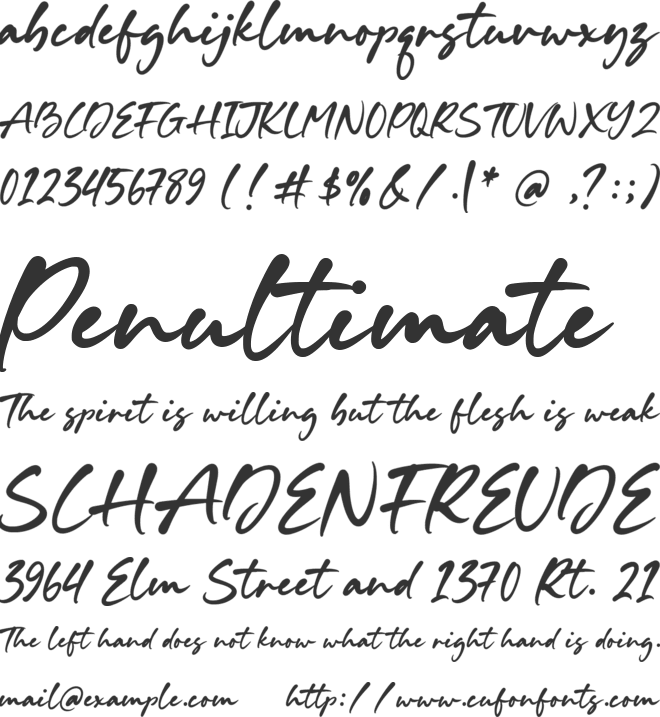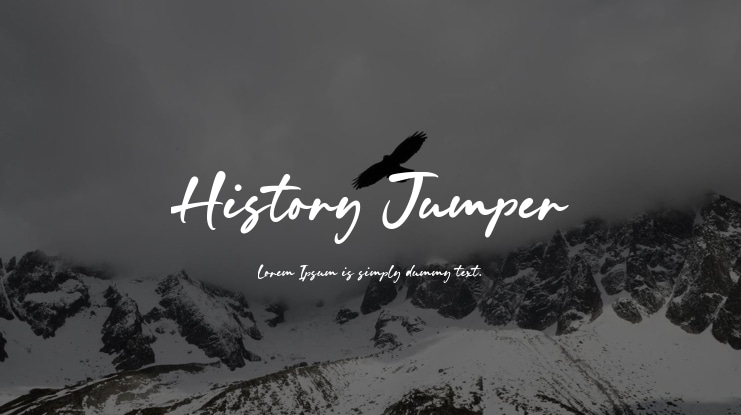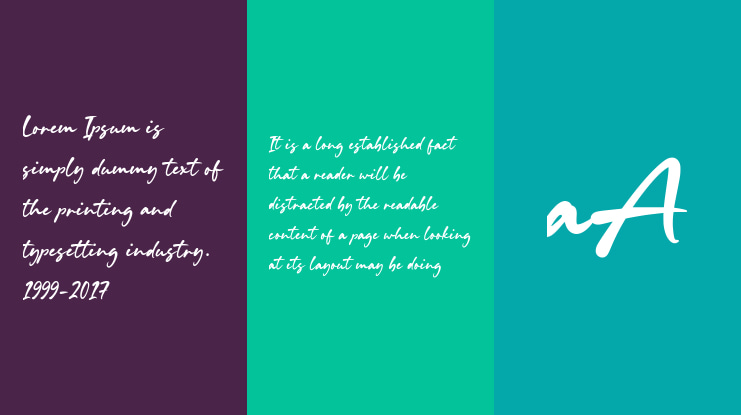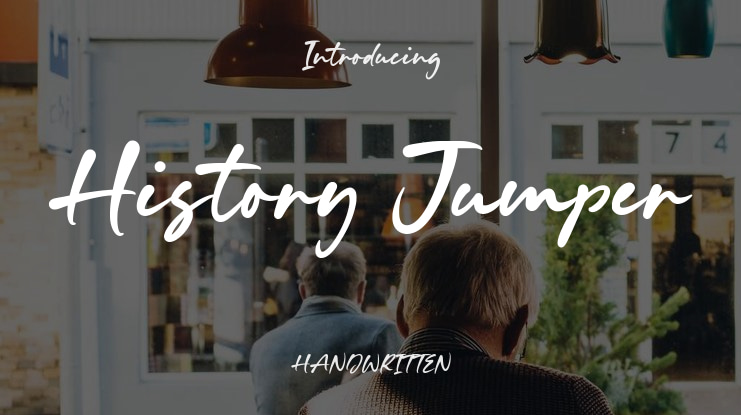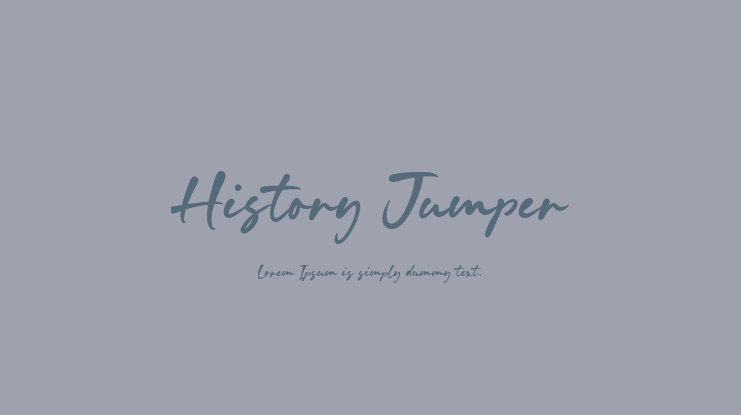
History Jumper Font
Introduced by Timurtype Studio!
History Jumper is a Handwritten Script Font
This captivating handwritten script font seamlessly blends elegance with a touch of nostalgia. With fluid strokes and artistic flourishes, it evokes a sense of warmth and authenticity, making it ideal for invitations, creative branding, and storytelling projects. Combining a unique balance of legibility and style, History Jumper adds timeless charm to any design, inviting users to delve into a world of creativity and expression.
History Jumper Font also supports multilingualism.
Features of History Jumper Font include:
• Full set of standard alphabet and punctuation